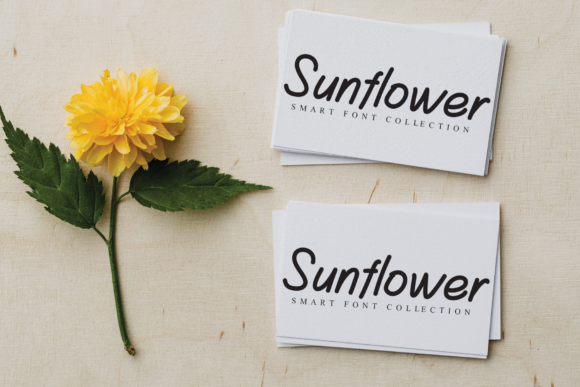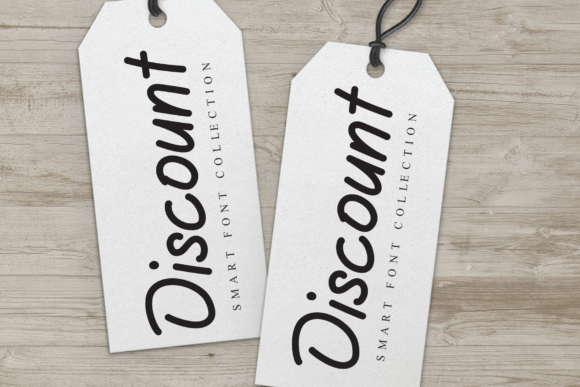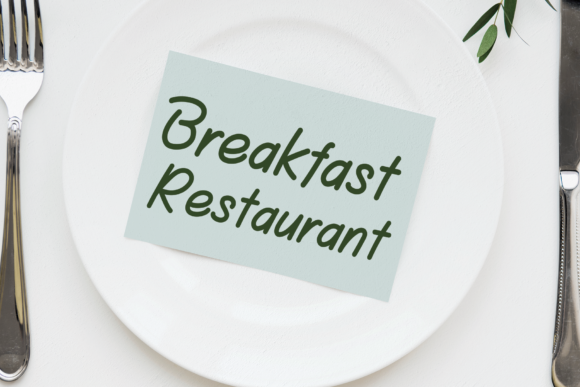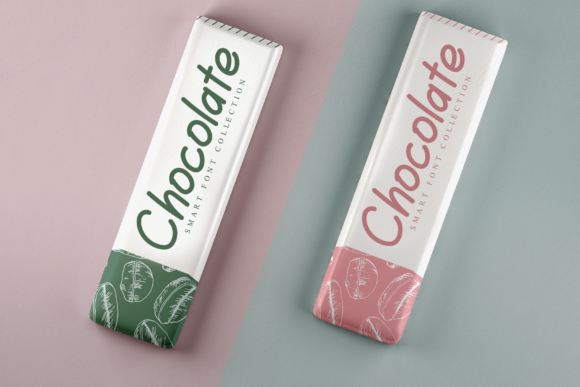
Introducing Amellinda Valentine Font: The Perfect Casual Handwritten Font for Crafty Designs
Are you a designer or crafter looking for a font that can add a personal touch to your projects? Look no further than the Amellinda Valentine Font. This casual handwritten font is designed to be versatile and appealing to a wide range of crafty ideas, from letterheads and titles to stationery. In this article, we’ll explore the features and benefits of the Amellinda Valentine Font and how it can elevate your designs.
What is Amellinda Valentine Font?
Amellinda Valentine Font is a beautifully crafted handwritten font that exudes a sense of warmth and friendliness. Its casual and approachable style makes it perfect for designers and crafters who want to add a personal touch to their projects. The font is designed to be highly legible, making it suitable for use in a variety of applications, from digital designs to print materials.
Key Features of Amellinda Valentine Font
- Casual Handwritten Style: The Amellinda Valentine Font features a casual handwritten style that is perfect for adding a personal touch to your designs.
- High Legibility: The font is designed to be highly legible, making it suitable for use in a variety of applications, from digital designs to print materials.
- Versatility: The Amellinda Valentine Font is versatile and can be used in a wide range of crafty ideas, from letterheads and titles to stationery.
Benefits of Using Amellinda Valentine Font
The Amellinda Valentine Font offers a range of benefits for designers and crafters. Here are just a few:
- Adds a Personal Touch: The font’s casual handwritten style adds a personal touch to your designs, making them more relatable and engaging.
- Enhances Creativity: The Amellinda Valentine Font’s versatility and legibility make it an excellent choice for designers and crafters who want to explore new creative possibilities.
- Perfect for Branding: The Amellinda Valentine Font is perfect for branding projects, such as logos, business cards, and letterheads, where a personal touch is essential.
Design Ideas Using Amellinda Valentine Font
The Amellinda Valentine Font is perfect for a wide range of design projects. Here are some ideas to get you started:
- Letterheads and Stationery: Use the Amellinda Valentine Font to create personalized letterheads and stationery.
- Titles and Headings: Use the font to create eye-catching titles and headings for your designs.
- Logos and Branding: Use the Amellinda Valentine Font to create unique and memorable logos and branding materials.
- Digital Designs: Use the font in digital designs, such as social media graphics, blog posts, and email newsletters.
The Amellinda Valentine Font is a versatile and beautiful casual handwritten font that is perfect for designers and crafters who want to add a personal touch to their projects. Its high legibility, ease of use, and versatility make it an excellent choice for a wide range of design applications. Whether you’re creating letterheads, titles, or digital designs, the Amellinda Valentine Font is sure to elevate your designs and make them more engaging and relatable.